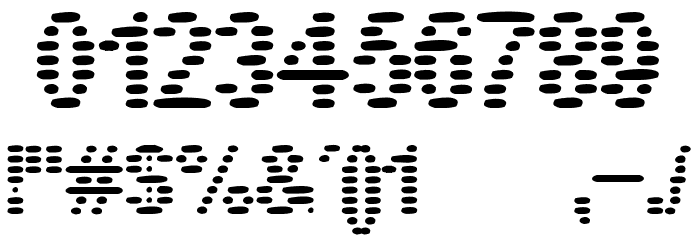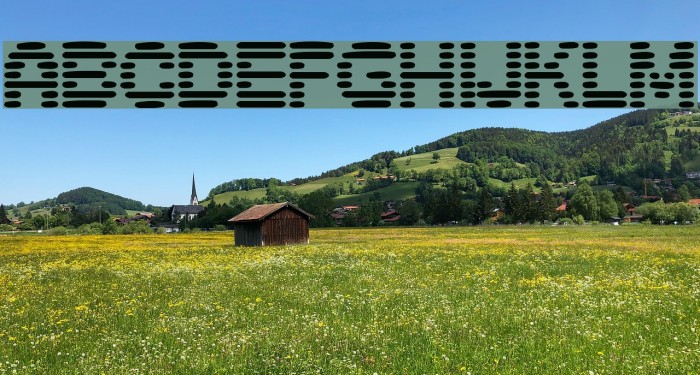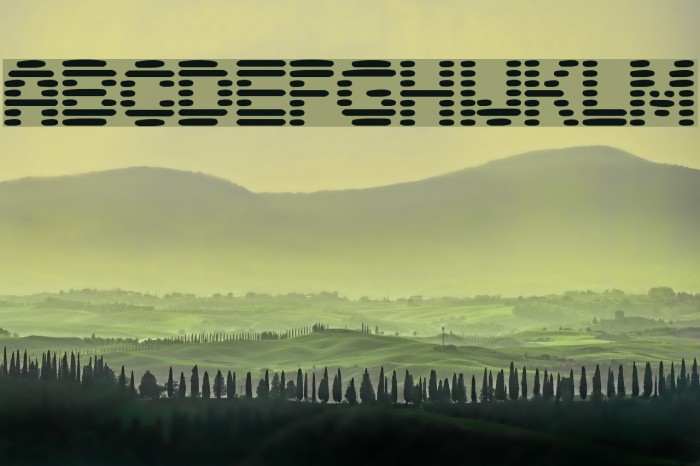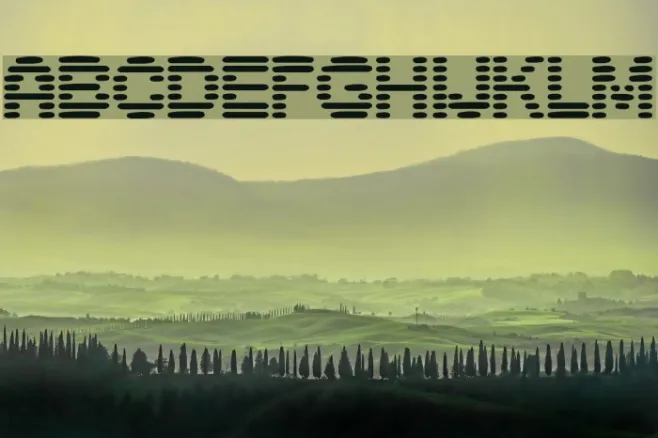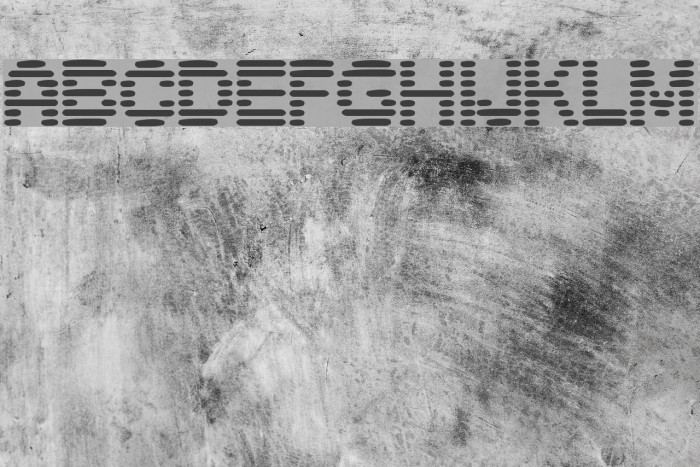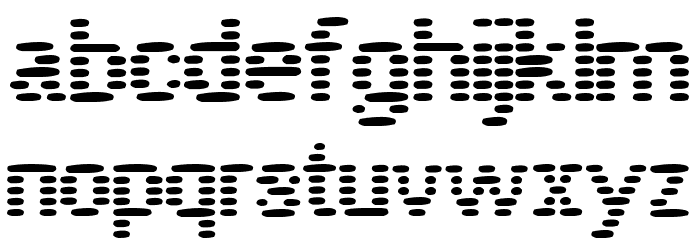
pixelino Font
pixelino Description
This font features a unique and playful design, characterized by its dotted pattern that forms each letter and number. The dots vary in size, creating a dynamic and visually engaging texture. The uppercase and lowercase letters maintain a consistent style, with rounded edges and a modern, digital aesthetic. The numbers and special characters follow the same design principles, ensuring uniformity across the font. This font's distinctive appearance makes it ideal for creative and contemporary projects, where a bold and unconventional look is desired.
| Proposed Projects | Ideal for digital art, children's books, creative posters, and modern branding. |